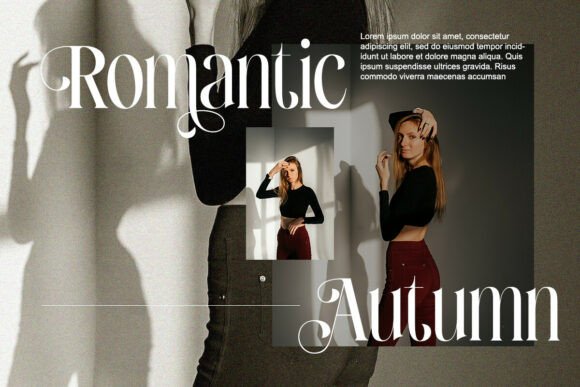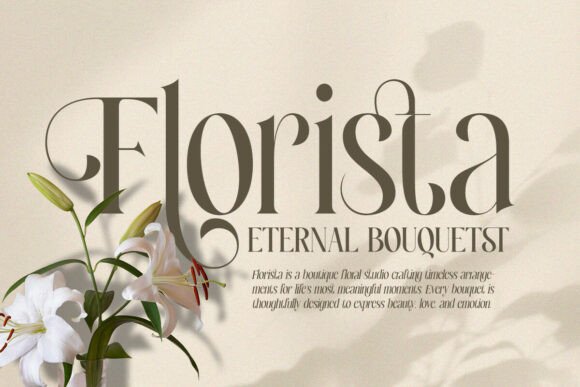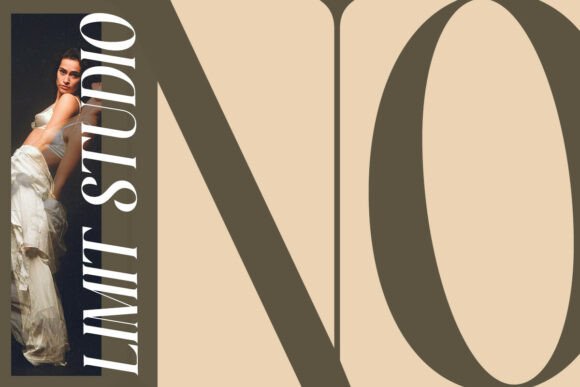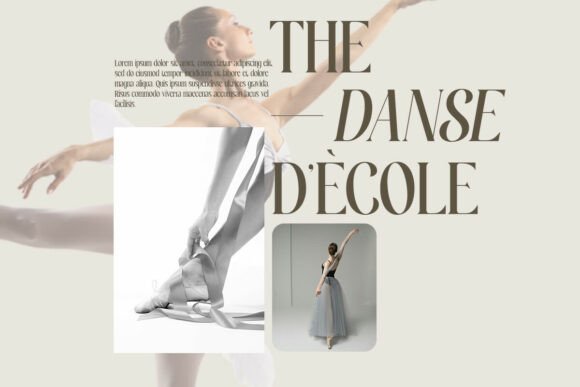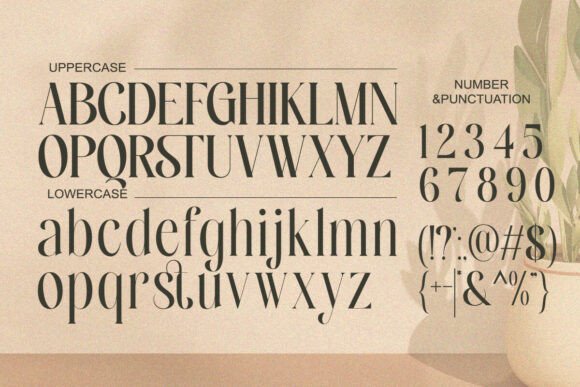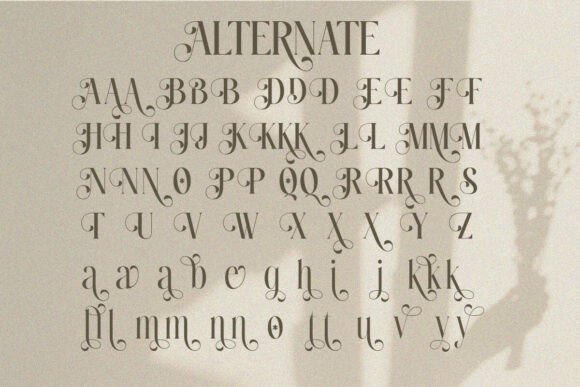
Introduction to Novera Balessa Font
Have you ever stared at a blank design canvas, waiting for that spark of inspiration to strike? For designers, this moment is a daily occurrence, and finding the perfect font can be the key to unlocking a creative project’s full potential. That’s where the Novera Balessa Font comes in – a stylish and sophisticated serif font that adds a touch of elegance to any design.
As a valuable resource for designers, Novera Balessa Font offers a unique blend of modern charm and artistic flair. With its high contrast strokes and delicate swashes, this font is perfect for creating high-impact designs that make a lasting impression. Whether you’re working on a fashion branding project, crafting editorial headlines, or designing luxury packaging, Novera Balessa Font is sure to elevate your work.
Key Features of Novera Balessa Font
- Features a unique, elegant design with intricate details, setting it apart from other fonts in its class.
- Designed to be highly legible at various font sizes and resolutions, making it suitable for both print and digital applications.
- Includes a comprehensive character set, covering a wide range of languages and characters, to cater to diverse design needs.
Honest Review: Novera Balessa Font
- ✨ High quality design: The font is crisp and clean, making it ideal for both digital and print projects.
- ✨ Transparent background: The font is easy to work with, and the transparent background makes it simple to combine with other design elements.
- ✨ Versatile: The font comes in a variety of weights and styles, making it perfect for a range of creative projects.
- ⚠️ Limited language support: The font only supports a limited range of languages, which may be a drawback for designers who need to work with multiple languages.
- ⚠️ Not ideal for large text: The font is best suited for smaller text sizes, as it can become difficult to read at larger sizes.
Overall, I’m impressed with the Novera Balessa Font. It’s a great addition to any design library, and its high quality design makes it perfect for a range of creative projects. With a little bit of caution regarding its limitations, I would highly recommend this font to designers of all levels.
Tips for Getting the Most Out of Novera Balessa Font
To get the most out of Novera Balessa Font, experiment with different font sizes, colors, and styles. You can also combine it with other fonts to create a unique visual effect. Additionally, use it in conjunction with images or graphics to add depth and interest to your design.
Novera Balessa Font is ideal for various design projects, including logos, brochures, business cards, and presentations. It’s also perfect for social media graphics, infographics, and other digital content. With its high-quality design and transparent background, Novera Balessa Font is a valuable addition to any designer’s toolkit.